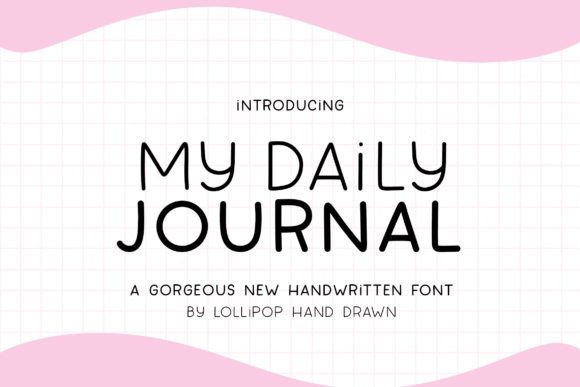
My Daily Journal Font: The Adorable Handwritten Font for All Occasions
Are you tired of using the same old fonts for your crafts, digital designs, presentations, and greeting cards? Look no further than My Daily Journal font, an adorable handwritten font that is sure to become your new go-to font for all occasions. In this article, we’ll take a closer look at My Daily Journal font, its features, and how you can use it to add a personal touch to your projects.
What is My Daily Journal Font?
My Daily Journal font is a beautiful handwritten font that is designed to mimic the look and feel of a personal journal. It’s perfect for anyone who loves to add a personal touch to their projects, whether it’s a craft, digital design, presentation, or greeting card. The font is highly versatile and can be used for a wide range of applications, from scrapbooking to social media graphics.
Features of My Daily Journal Font
My Daily Journal font has several features that make it a great choice for your projects. Here are a few:
- Handwritten look: My Daily Journal font has a beautiful handwritten look that is sure to add a personal touch to your projects.
- Highly legible: The font is highly legible, making it perfect for use in digital designs, presentations, and greeting cards.
- Versatile: My Daily Journal font can be used for a wide range of applications, from scrapbooking to social media graphics.
Uses of My Daily Journal Font
My Daily Journal font can be used for a wide range of applications, including:
- Crafts: My Daily Journal font is perfect for use in crafts, such as scrapbooking, card making, and journaling.
- Digital design: The font can be used to create beautiful digital designs, such as social media graphics, blog posts, and email newsletters.
- Presentations: My Daily Journal font can be used to add a personal touch to presentations, making them more engaging and memorable.
- Greeting cards: The font is perfect for use in greeting cards, adding a personal touch to special occasions such as birthdays, weddings, and holidays.
Tips for Using My Daily Journal Font
Here are a few tips for using My Daily Journal font:
- Use it sparingly: My Daily Journal font is a beautiful font, but it can be overwhelming if used too much. Use it sparingly to add a personal touch to your projects.
- Pair it with other fonts: My Daily Journal font can be paired with other fonts to create a unique and interesting look.
- Experiment with colors: The font looks great in a variety of colors, so don’t be afraid to experiment and find the perfect color for your project.
My Daily Journal font is a beautiful handwritten font that is sure to become your new go-to font for all occasions. Its highly legible and versatile design makes it perfect for use in crafts, digital designs, presentations, and greeting cards. With its easy-to-use installation process and tips for use, you can start creating beautiful projects with My Daily Journal font today.
- What is My Daily Journal font? My Daily Journal font is a beautiful handwritten font designed to mimic the look and feel of a personal journal.